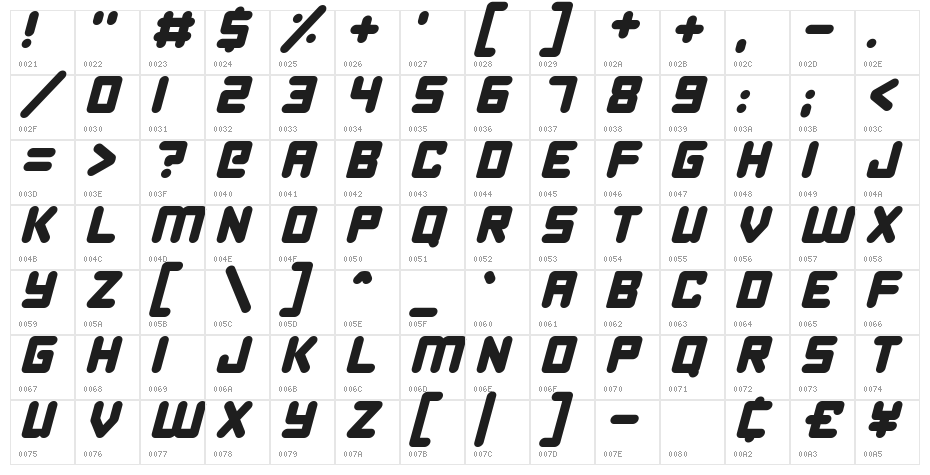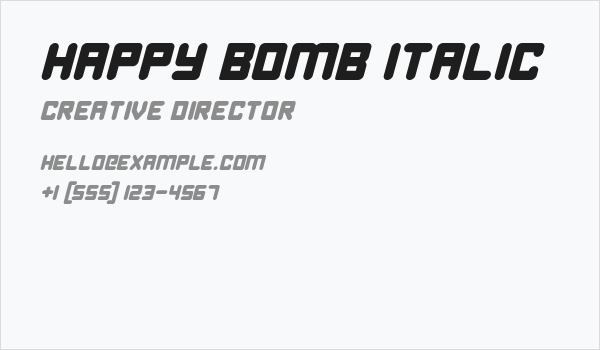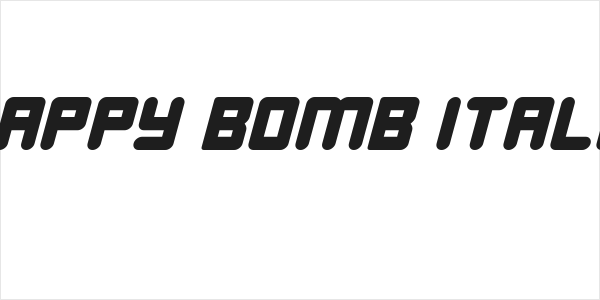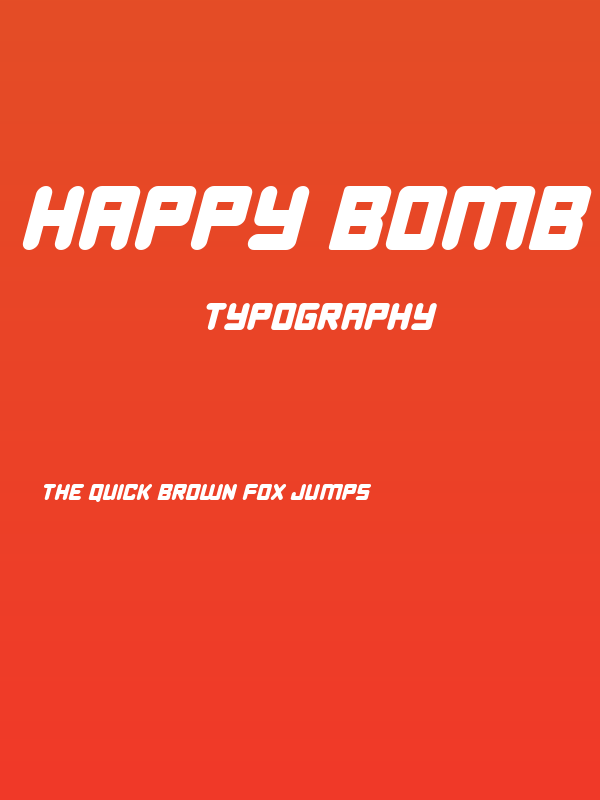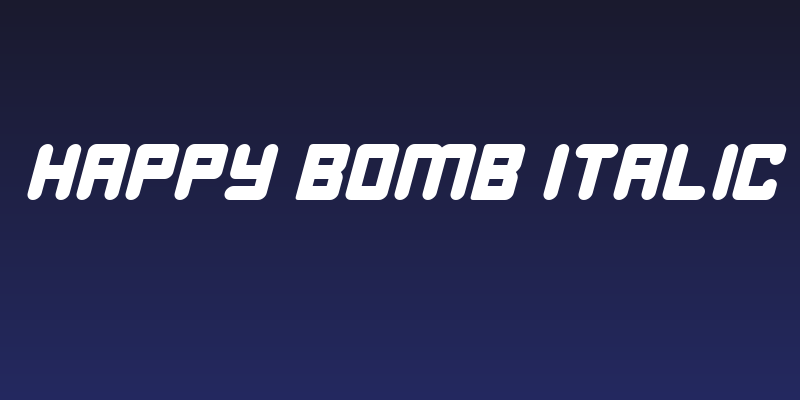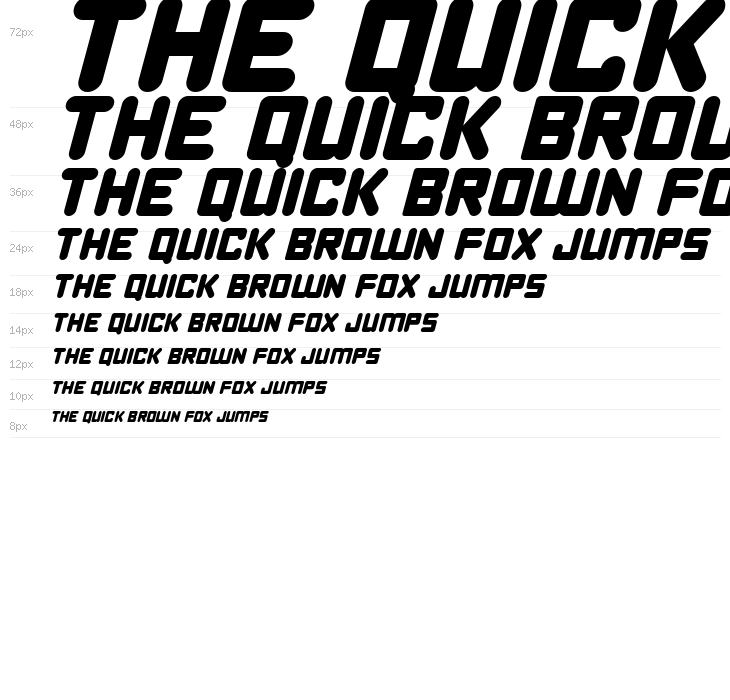
Happy Bomb Italic Font
Happy Bomb Italic Description
This font features a bold and dynamic style with a distinct italic slant, giving it a sense of movement and energy. The characters are rounded with a consistent stroke width, creating a smooth and cohesive appearance. The uppercase and lowercase letters maintain a uniform height, contributing to a balanced and harmonious look. The numerals and special characters are designed to match the overall style, ensuring versatility across different uses. The font's modern and playful aesthetic makes it suitable for a variety of creative projects.
| Proposed Projects | Ideal for branding, advertising, posters, and digital media where a bold and lively impression is desired. |